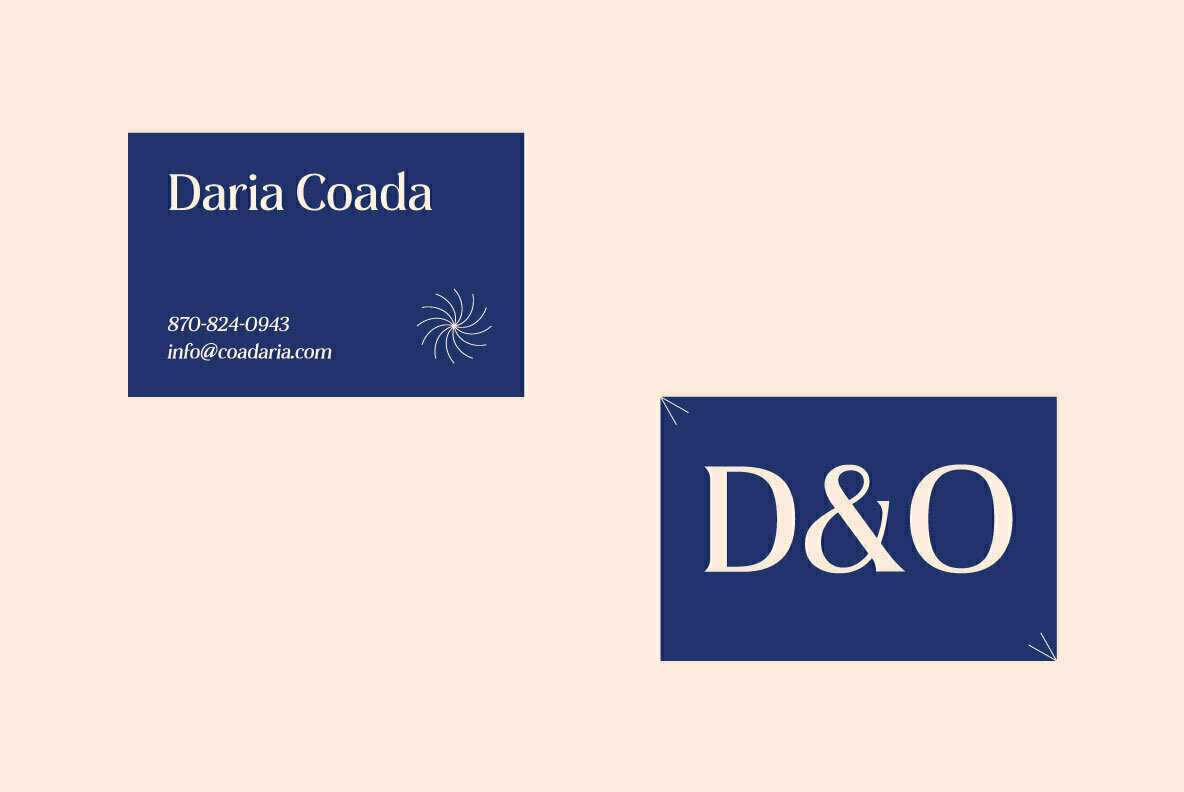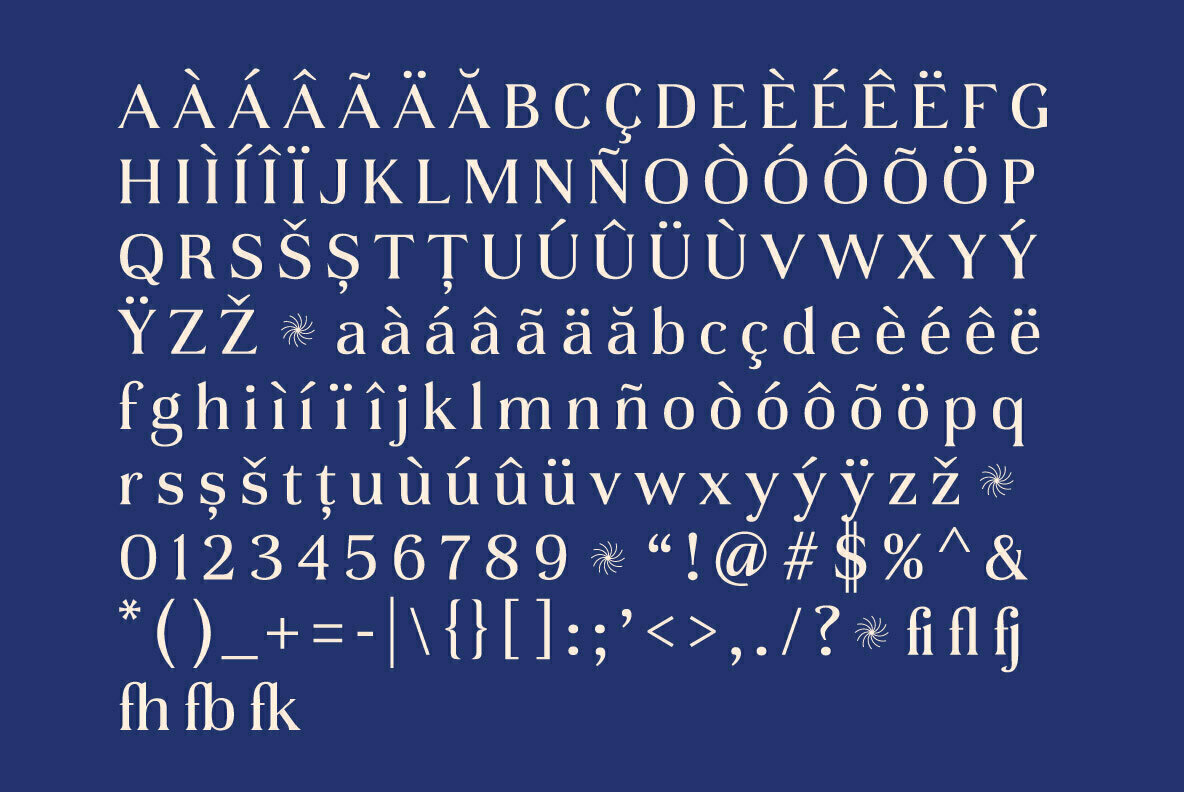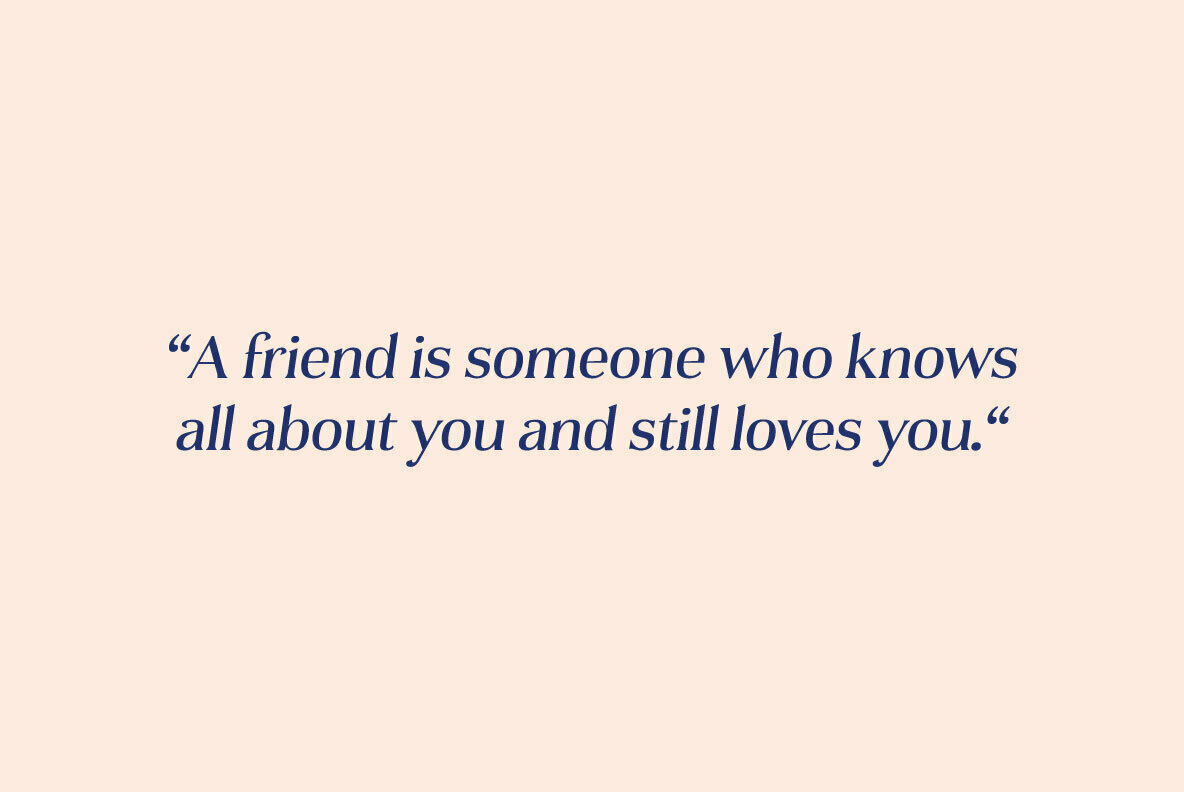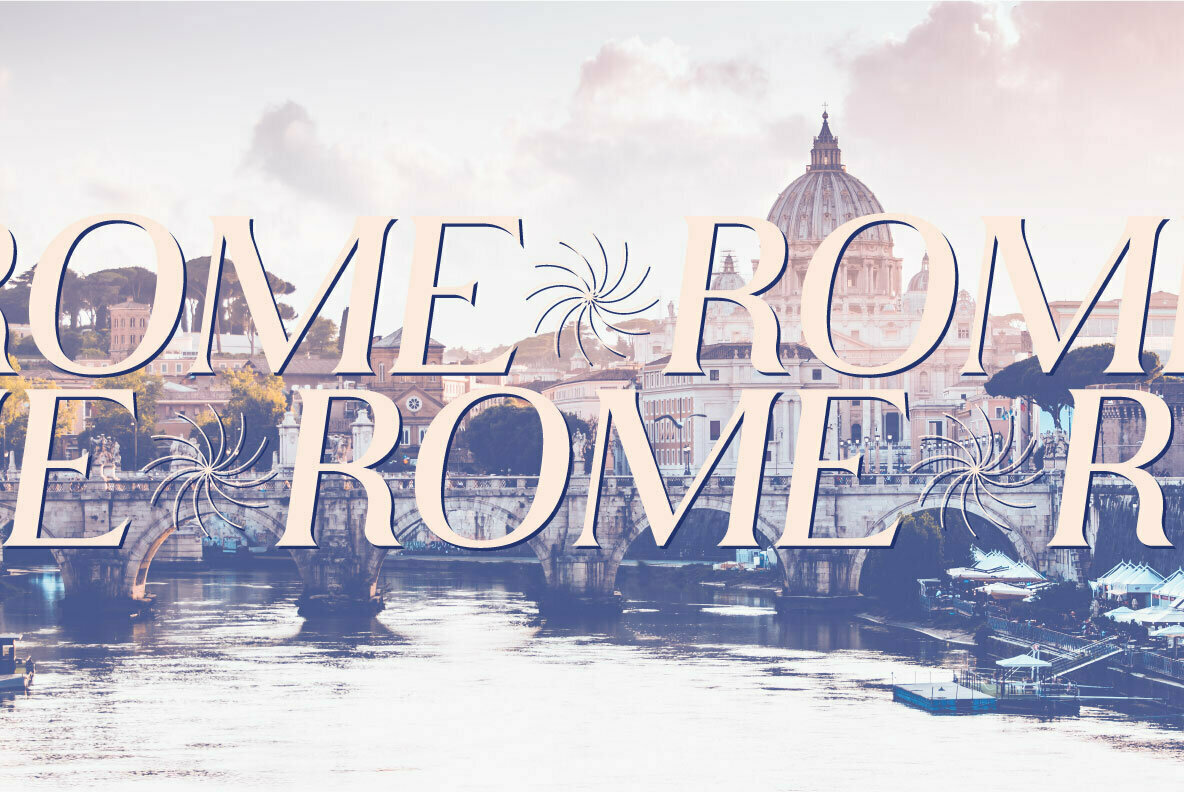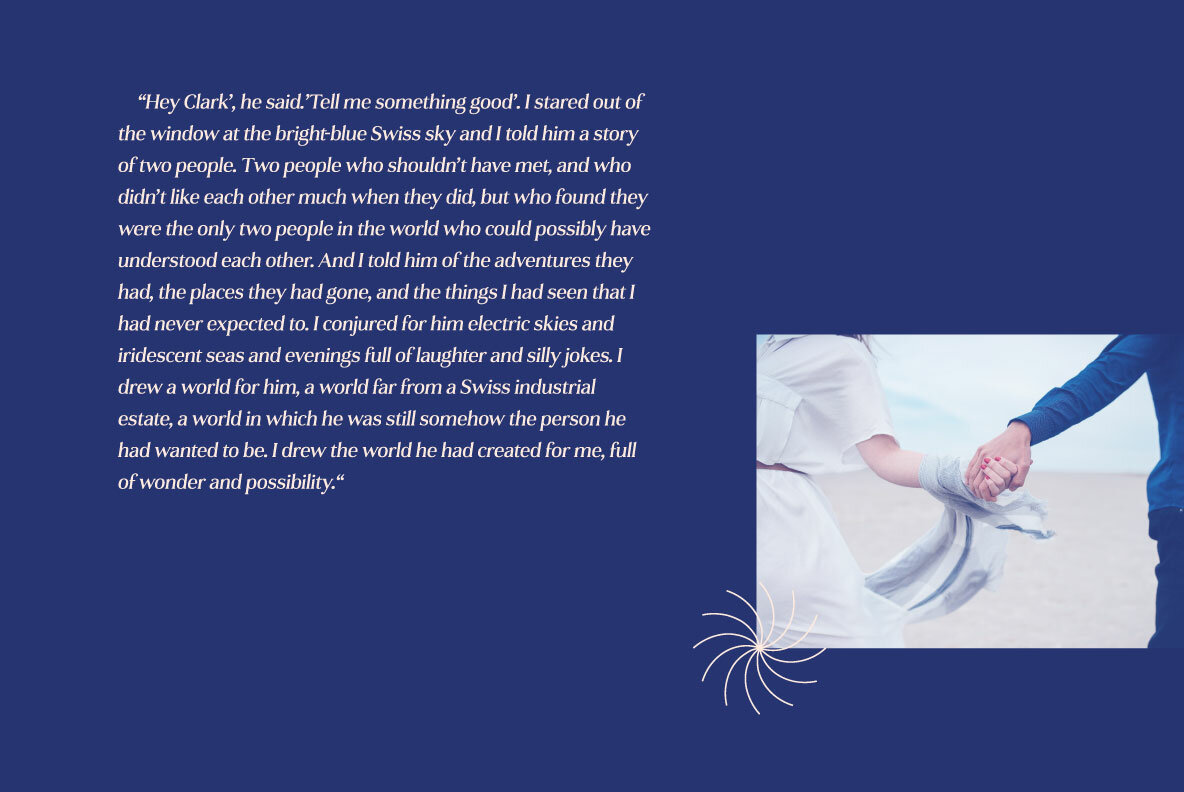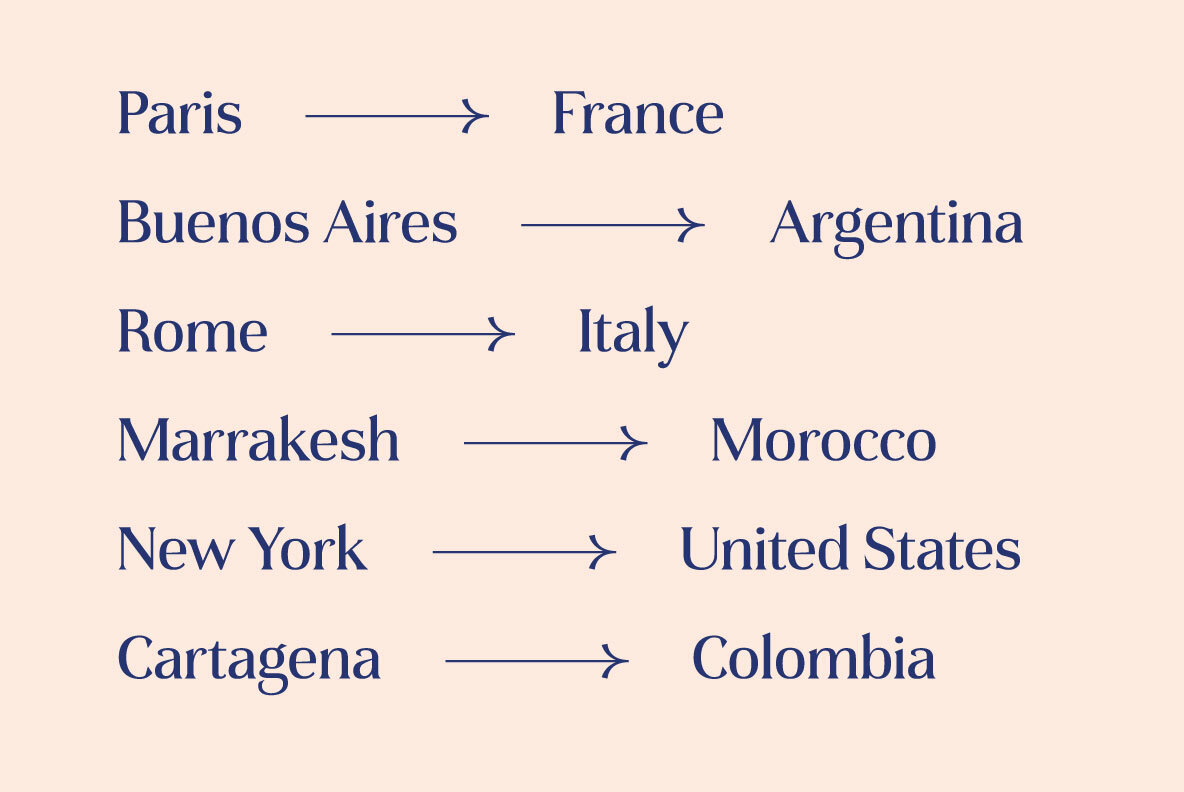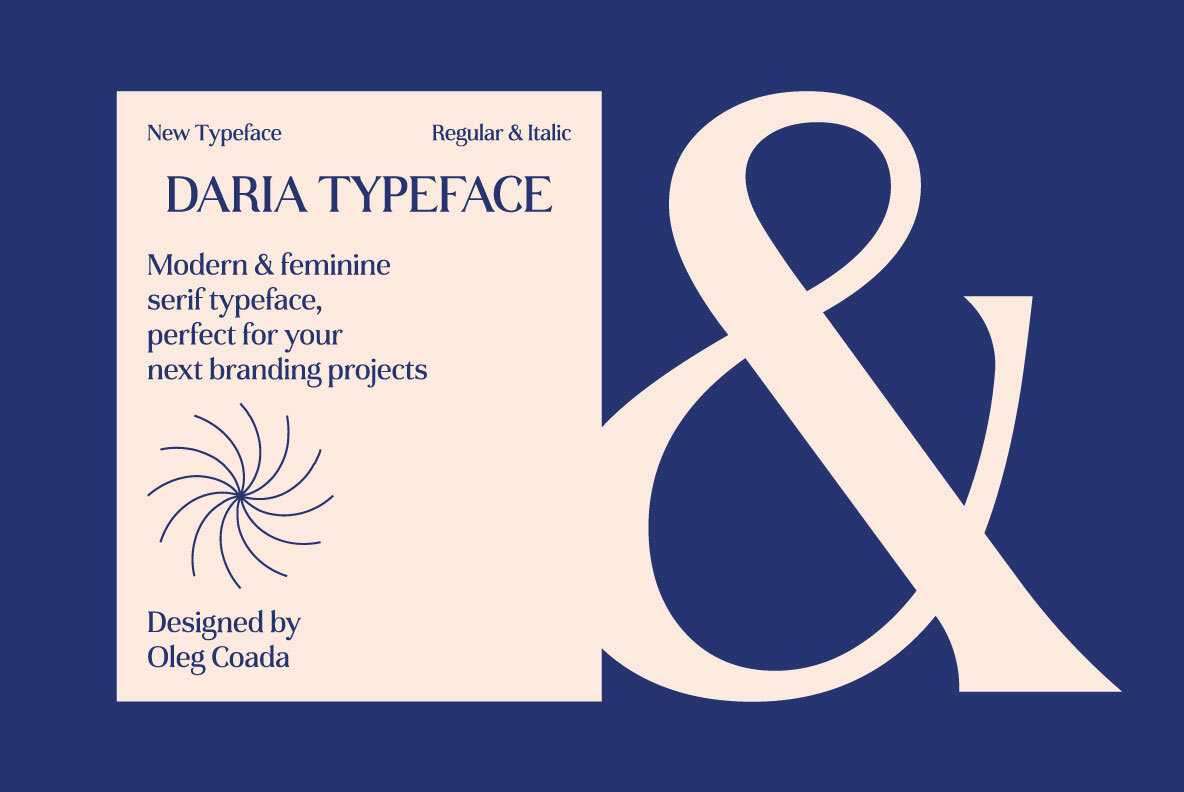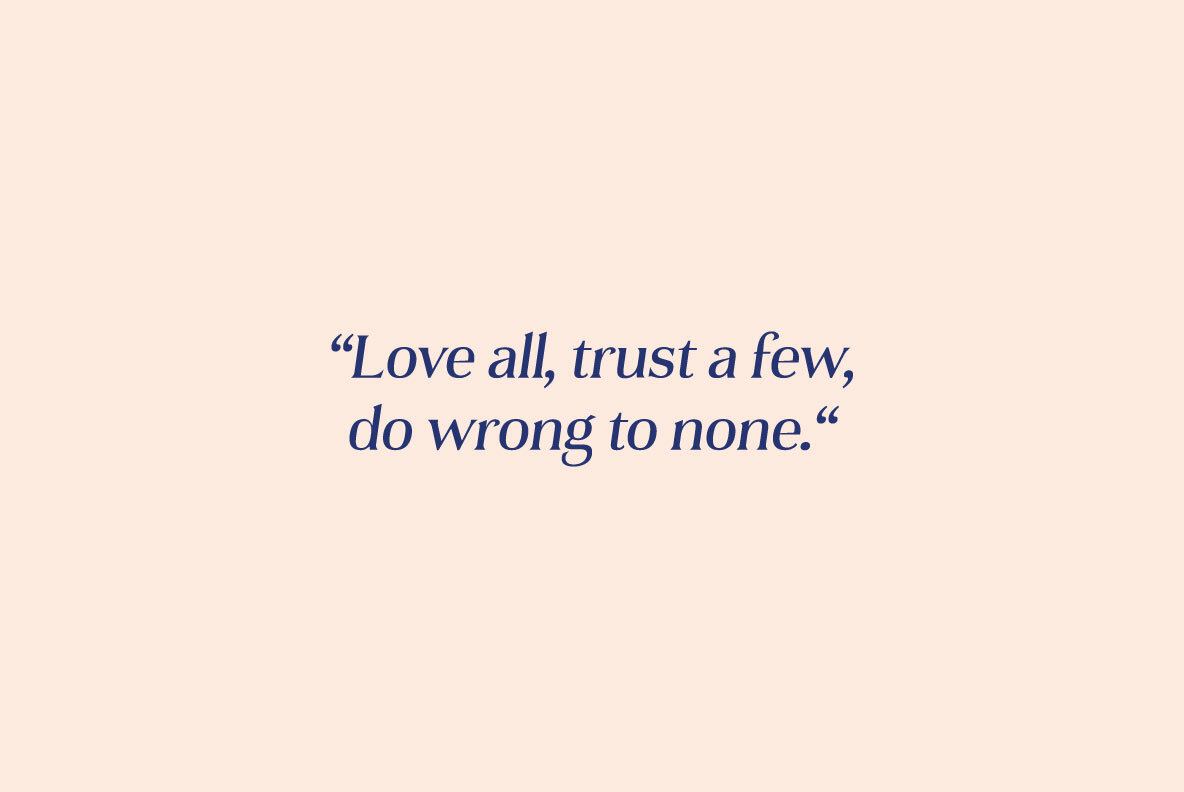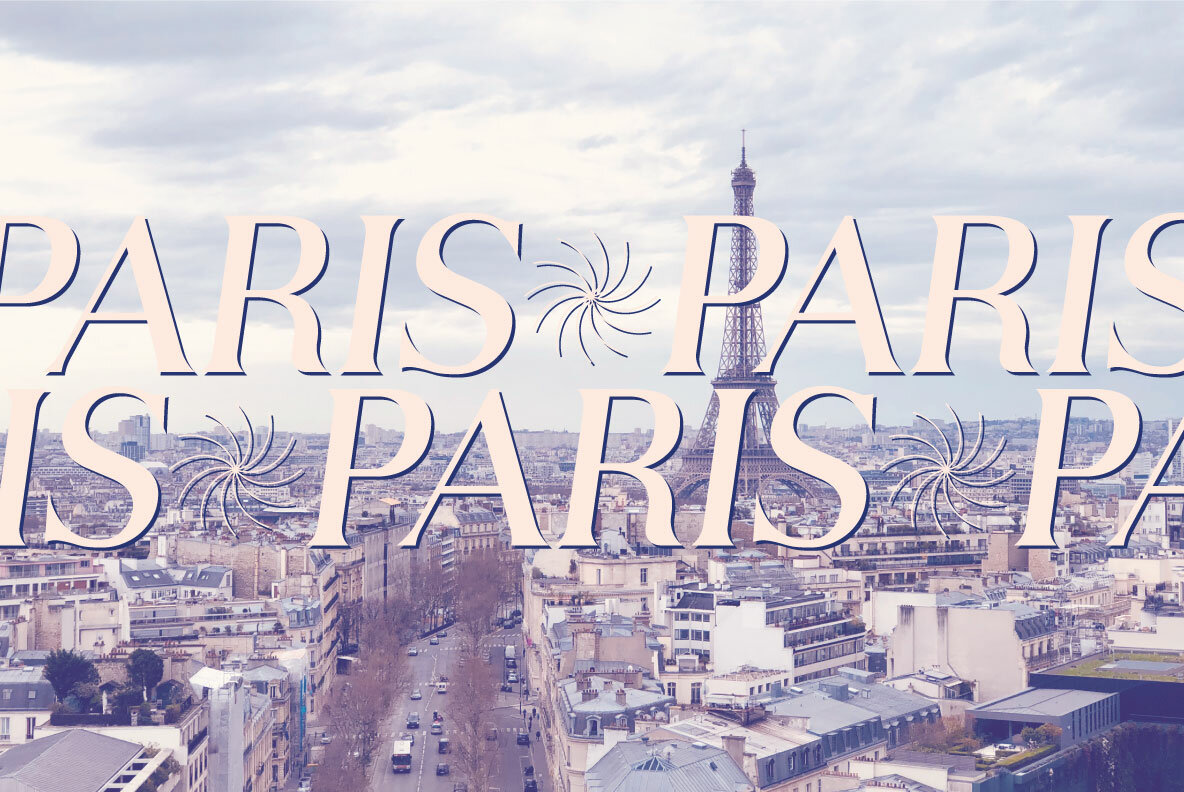
Daria Font
Daria merges modern elegance with a feminine touch, providing an ideal choice for a variety of design projects. From branding and logos to social media and advertising, this serif font suits an array of creative endeavors. Daria is accessible and easy to use, requiring no special software to integrate seamlessly into your design toolkit. Whether you're creating posters, headers, or digital content, Daria offers a versatile solution for your visual communication needs.Daria: A Modern Serif for Contemporary Projects